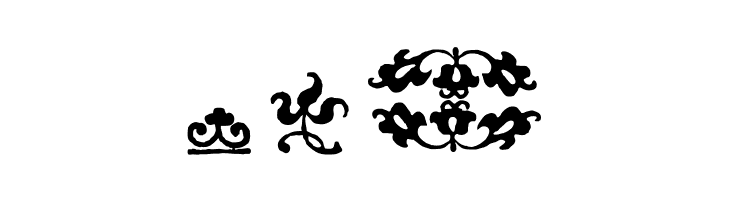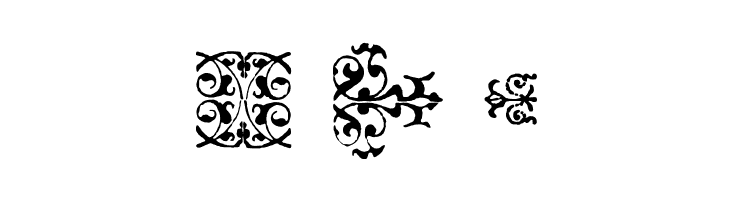
• IM_FELL_FLOWERS_1
( Fonts by Igino Marini )
Intricate floral and ornamental design with a vintage, decorative style.
• IM_FELL_FLOWERS_2
( Fonts by Igino Marini )
A decorative font with intricate floral and ornamental designs.